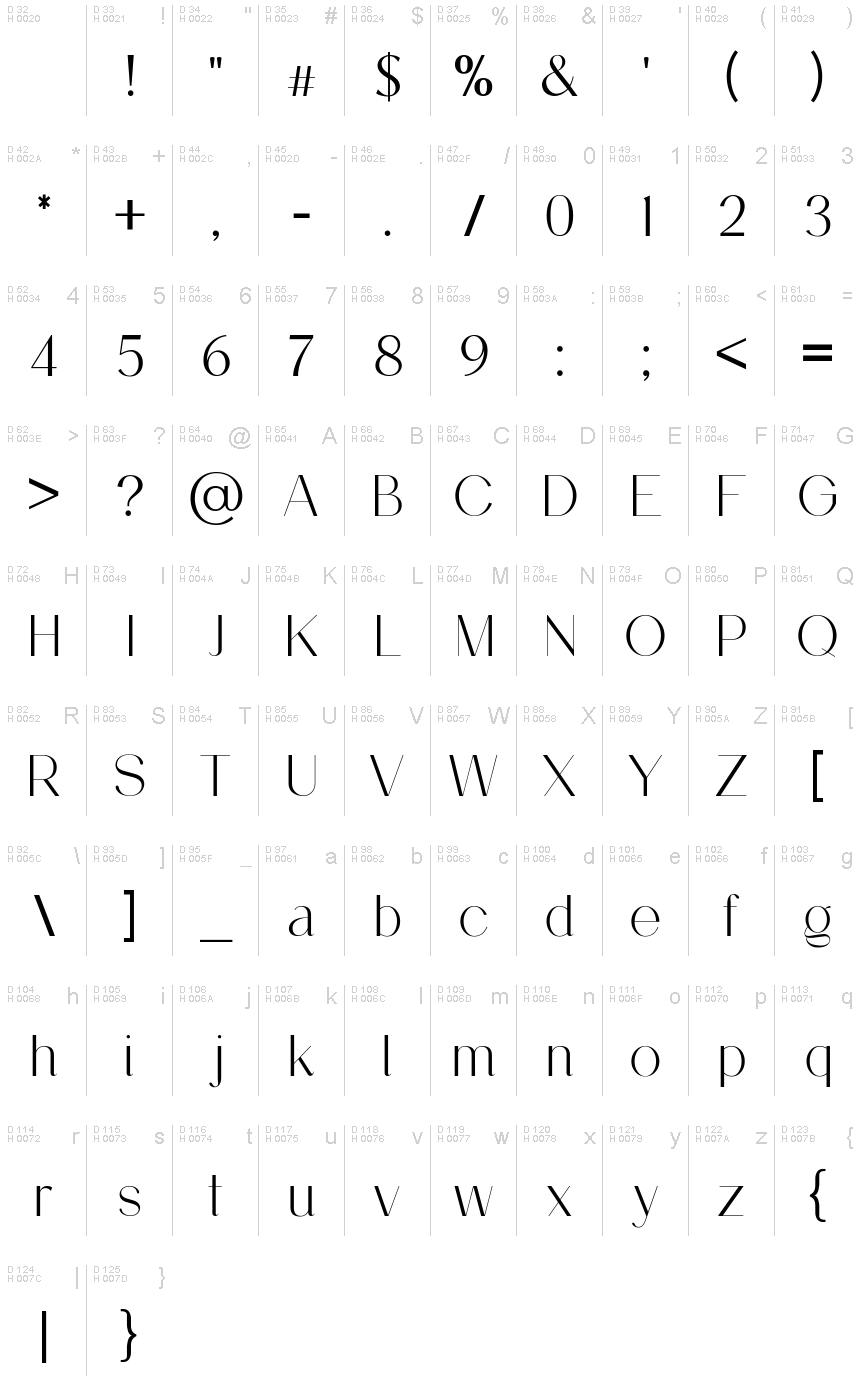
Bonnevarc
Bonnevarc, a captivating sans-serif font crafted by UI Creative, exudes a refined and modern elegance. Its clean, streamlined letterforms convey a sense of sophistication, making it an alluring choice for a wide array of design applications. The font's balanced proportions and subtle curves create a harmonious visual rhythm, while the crisp, legible characteristics ensure exceptional readability across various mediums.
Bonnevarc's versatility shines through its ability to seamlessly adapt to diverse design contexts. Its minimalist aesthetic lends itself well to modern branding, sleek editorial layouts, and captivating digital interfaces. Whether you're crafting a high-end fashion lookbook or designing a cutting-edge technology website, the Bonnevarc font presents an invaluable asset to elevate the visual impact of your project.